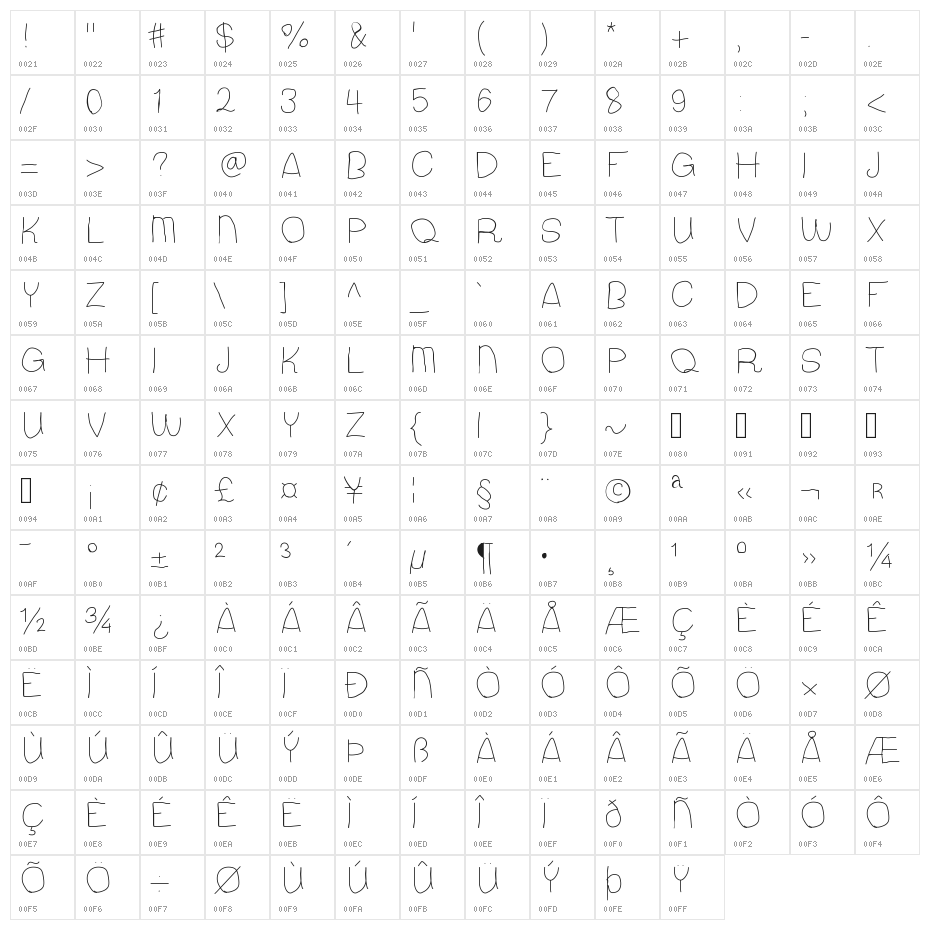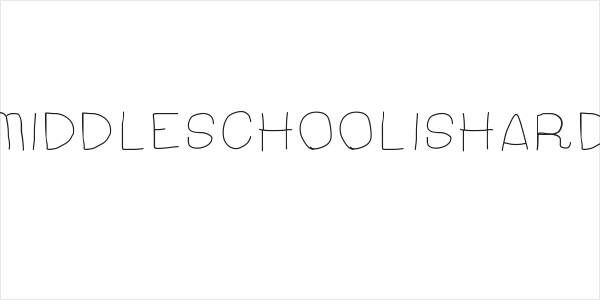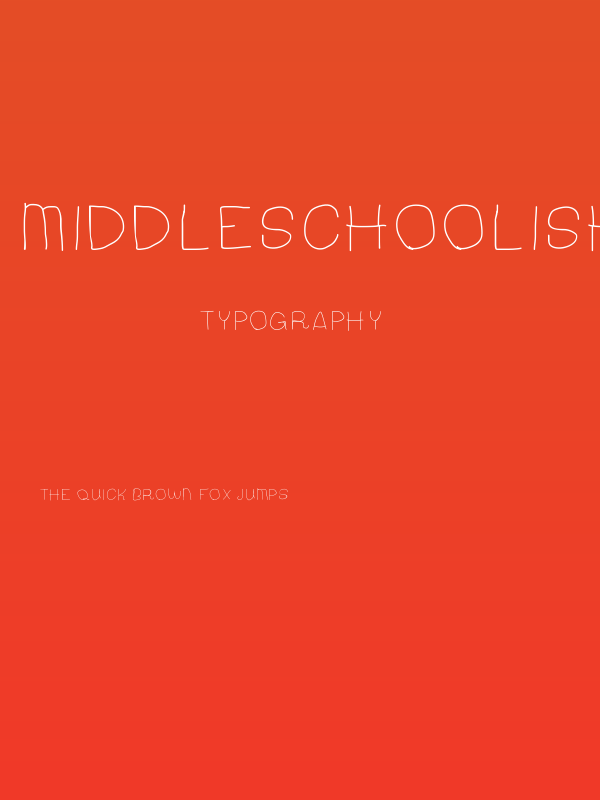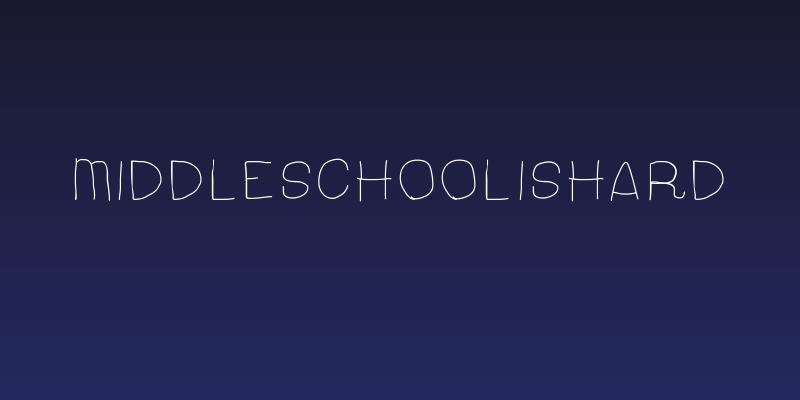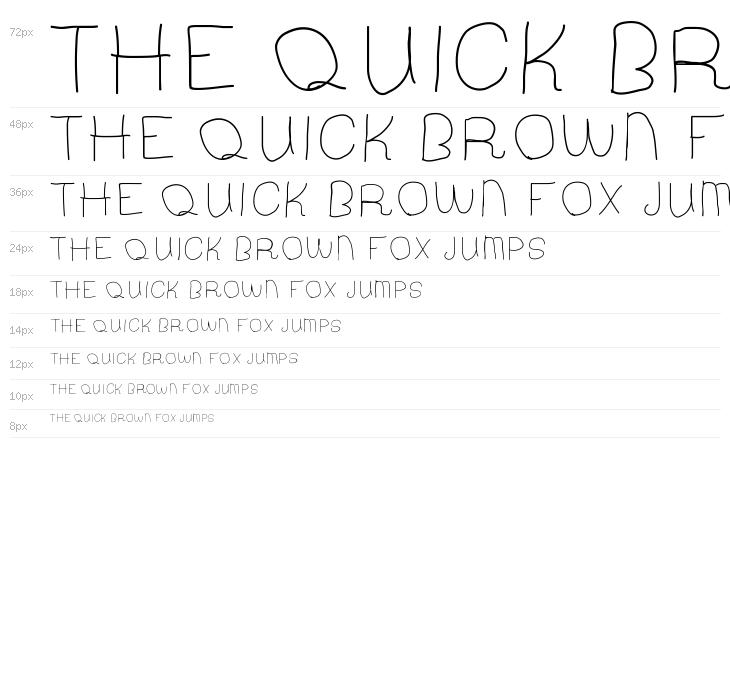
MiddleSchoolIsHard Font
MiddleSchoolIsHard Description
This font features a playful and casual handwritten style, characterized by its thin, slightly uneven strokes that give it a whimsical and approachable feel. The letters are tall and narrow, with a consistent height across both uppercase and lowercase characters. The numbers and special characters maintain the same playful aesthetic, adding to the font's cohesive look. The overall design is reminiscent of a child's handwriting, making it ideal for projects that require a friendly and informal touch.
Overall StyleCasual, Playful
Use CaseHeadlines, Informal text, Children's materials
Proposed ProjectsIdeal for children's books, educational materials, greeting cards, and playful branding.